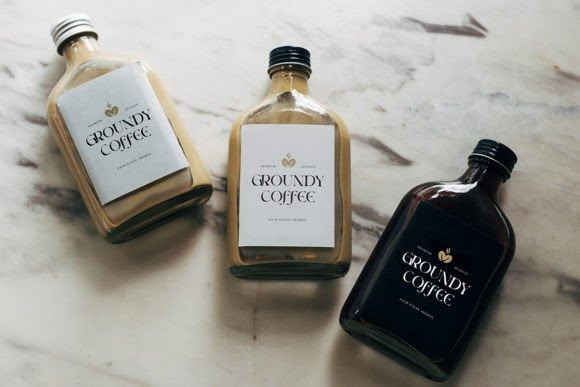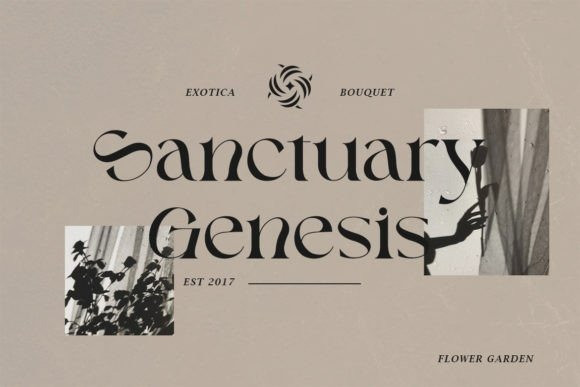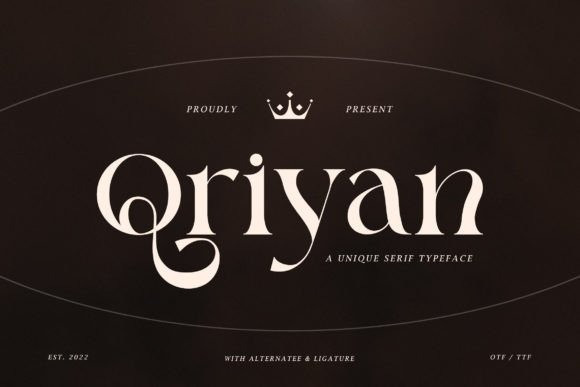
Qriyan Font
How outstanding! Qriyan Serif Font is a sophisticated, charming serif font with a fashionable touch. Specially designed for luxury, elegant, feminine projects, this font is perfectly suitable for creating modern, chic designs.